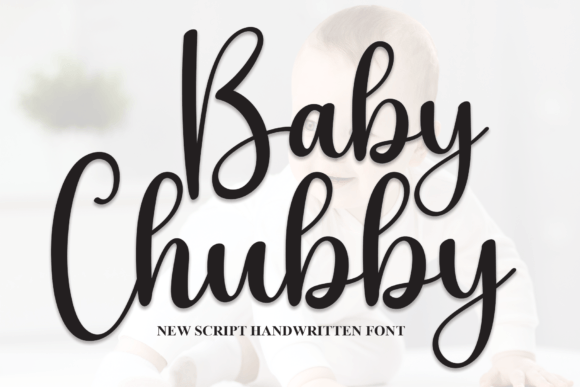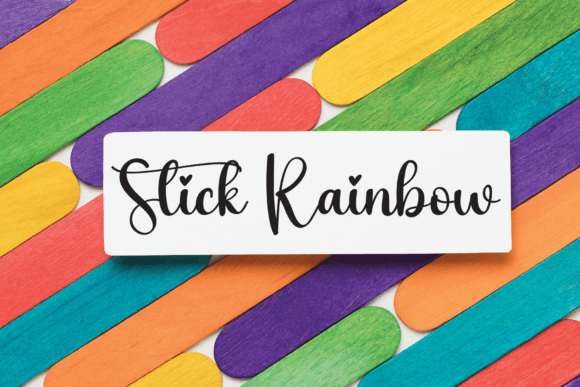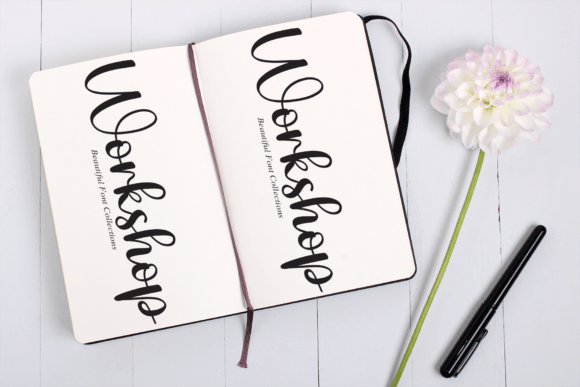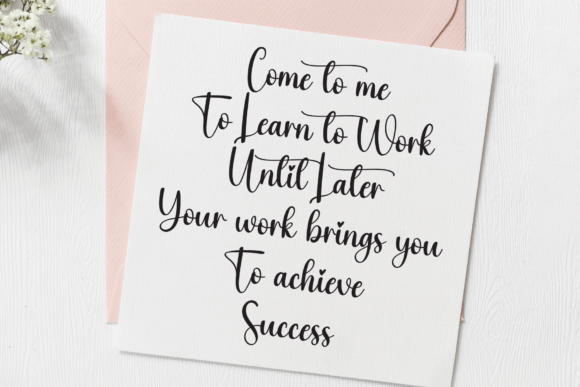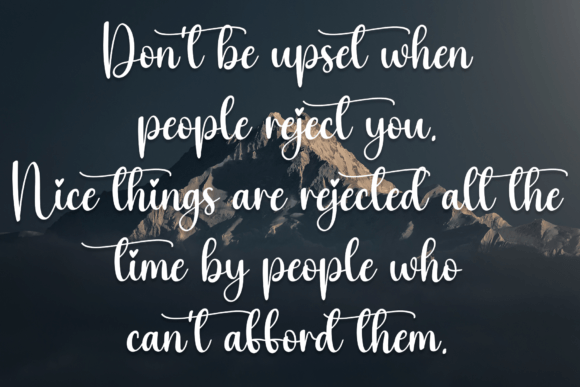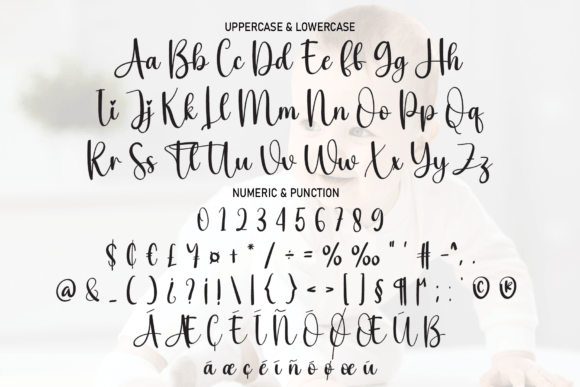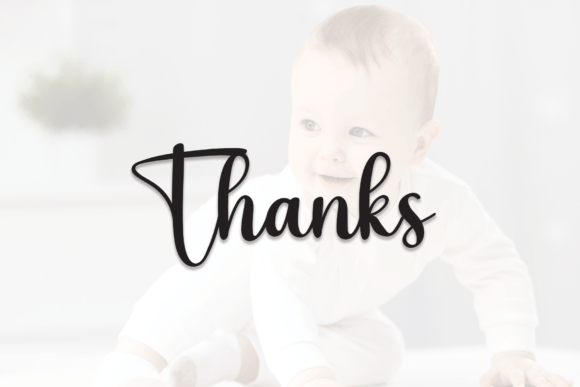
Baby Chubby Font
About Baby Chubby Font
Baby Chubby’s latest style letters represent a delightful and versatile handwritten font, bringing a playful and charming vibe to a wide array of design applications. With its fresh and lively aesthetic, this font is perfectly suited for various projects, ranging from wall displays and wedding invitations to social media post logos, advertisements, product packaging, product designs, labels, photography, watermarks, invitations, and stationery.
The essence of Baby Chubby lies in its ability to infuse a sense of warmth, personality, and approachability into your designs. The latest style letters of Baby Chubby are carefully crafted to create a lively and engaging visual experience. Imagine the font adorning wedding invitations, where its playful charm adds a touch of joy to the celebration. Envision it on social media post logos, capturing attention and fostering a connection with your audience through its friendly demeanor.
The versatility of Baby Chubby’s latest style letters shines through in product packaging and design contexts. Its handwritten taste brings a human touch to your branding, making it relatable and appealing. Whether applied to labels, advertisements, or stationery, the font’s lively letters make each project unique and memorable.
The handwritten taste of Baby Chubby’s latest style letters goes beyond aesthetics; it creates a personal and authentic feel. This font isn’t just a design tool; it’s a storyteller that conveys a sense of joy and vibrancy. Incorporating Baby Chubby into your design toolkit allows you to bring a touch of playfulness to your creative projects.
In summary, Baby Chubby’s latest style letters offer a versatile and delightful option for anyone seeking a handwritten font with character. It’s not just about letters; it’s about infusing life and energy into your designs. With its friendly and approachable demeanor, this font is ready to be the vibrant element that elevates your creations and leaves a lasting impression on your audience. Let the latest style letters of Baby Chubby be the playful touch that makes your designs stand out and come to life.